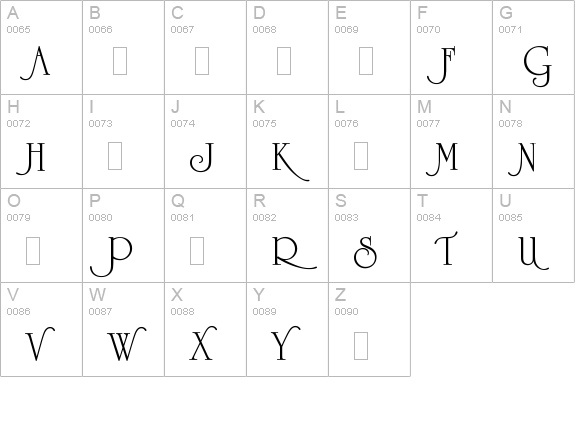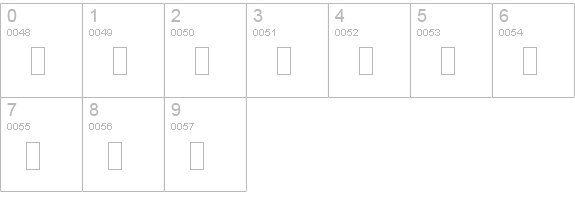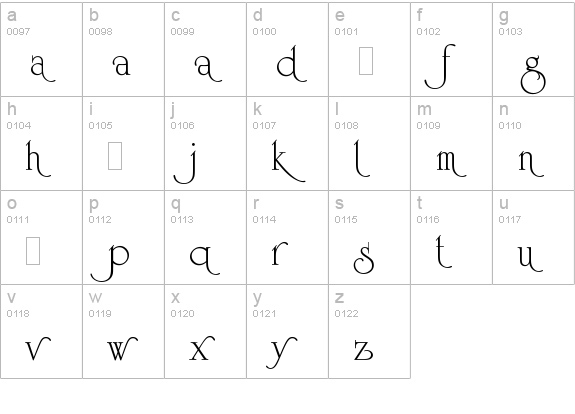
University Roman Alts LET Plain:1.0 Font Details
University Roman Alts LET Plain:1.0 is a classic and elegant font that exudes sophistication. This font is perfect for any project that requires a touch of professionalism and a timeless appeal. With its clean lines and balanced letterforms, University Roman Alts LET Plain:1.0 is highly readable and versatile. The font features a wide range of uppercase and lowercase characters, punctuation marks, and numerals, allowing you to create stunning designs with ease. Whether you are designing a logo, a poster, a website, or any other creative project, University Roman Alts LET Plain:1.0 will add a touch of elegance and refinement. One of the best things about University Roman Alts LET Plain:1.0 is that it is freely available to download at FontsMarket.com. This means that you can use this font in your personal and commercial projects without any restrictions. It is a great opportunity to enhance your designs without having to spend a fortune on fonts. So why wait? Download University Roman Alts LET Plain:1.0 today and elevate your designs to a whole new level of sophistication. FontsMarket.com offers this font for free, making it easily accessible to everyone. Don't miss out on this amazing opportunity to enhance your creative projects with this exquisite font.